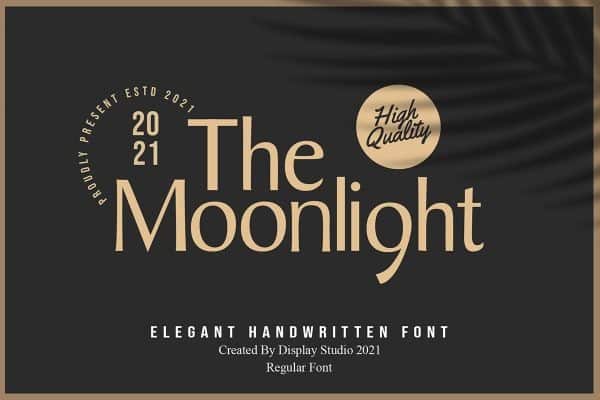
The Moonlight Font
The Moonlight Sans Serif Font is a cool, trendy and distinct sans serif font inspired by the 1900s. This super clean sans serif is perfect for bodytext, in magazines, websites, and books. Also suitable for book titles and posters.